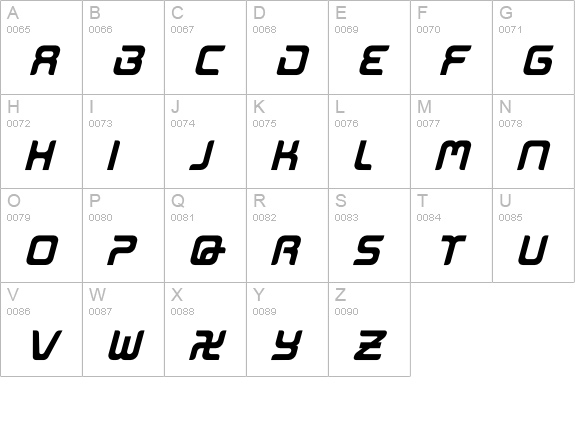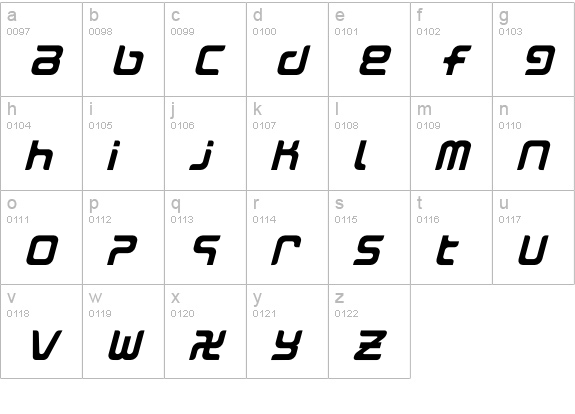
MarkingMarker-ALPItalic Font Details
Introducing MarkingMarker-ALPItalic, a captivating and versatile font that is sure to make a bold statement in any design project. This unique typeface combines the perfect balance of elegance and edginess, creating a visually stunning aesthetic that is bound to capture attention. With its intricate details and stylish curves, MarkingMarker-ALPItalic adds a touch of sophistication to any text, instantly elevating the overall design. Whether it's used for branding, packaging, or editorial purposes, this font effortlessly transforms ordinary text into a work of art. What sets MarkingMarker-ALPItalic apart is not only its exquisite design, but also its accessibility. This font is freely available to download at FontsMarket.com, ensuring that designers and creatives can effortlessly incorporate it into their projects without any hassle. Now, you can unleash your creativity without any limitations. MarkingMarker-ALPItalic is the perfect choice for those seeking to make a lasting impression. Its sleek and modern appeal is suitable for various design applications, from logos and headlines to social media graphics and web designs. This font is a true representation of style and versatility, allowing you to effortlessly convey your message with utmost impact. Don't miss out on the opportunity to enhance your designs with the captivating allure of MarkingMarker-ALPItalic. Download it for free at FontsMarket.com and unlock a world of endless creative possibilities. Elevate your design game and make a bold statement with this exceptional font.